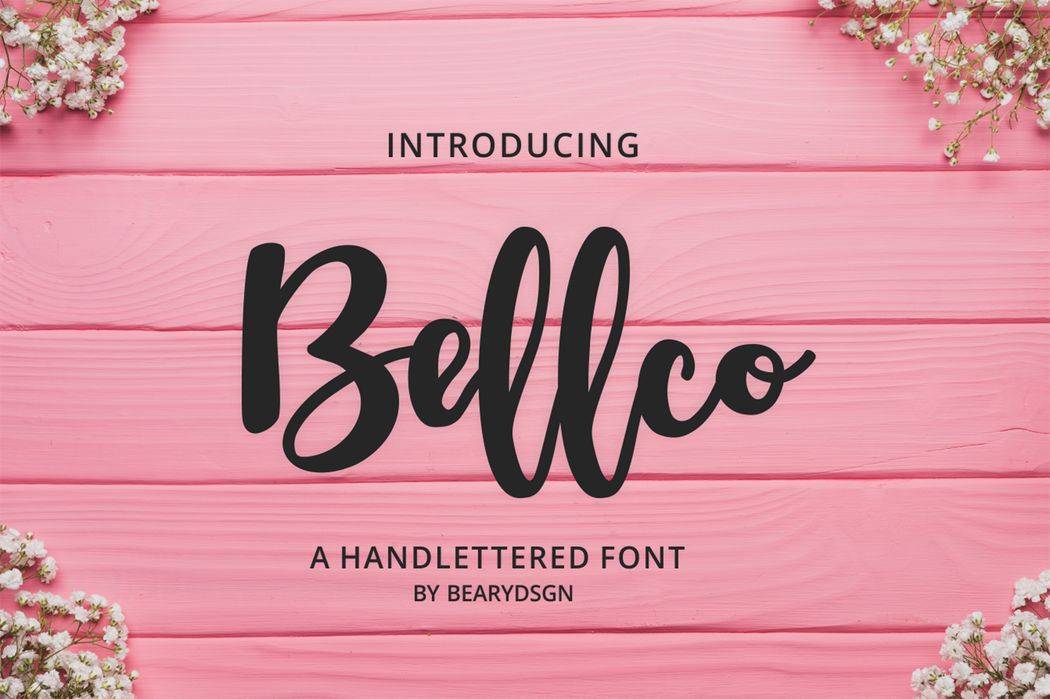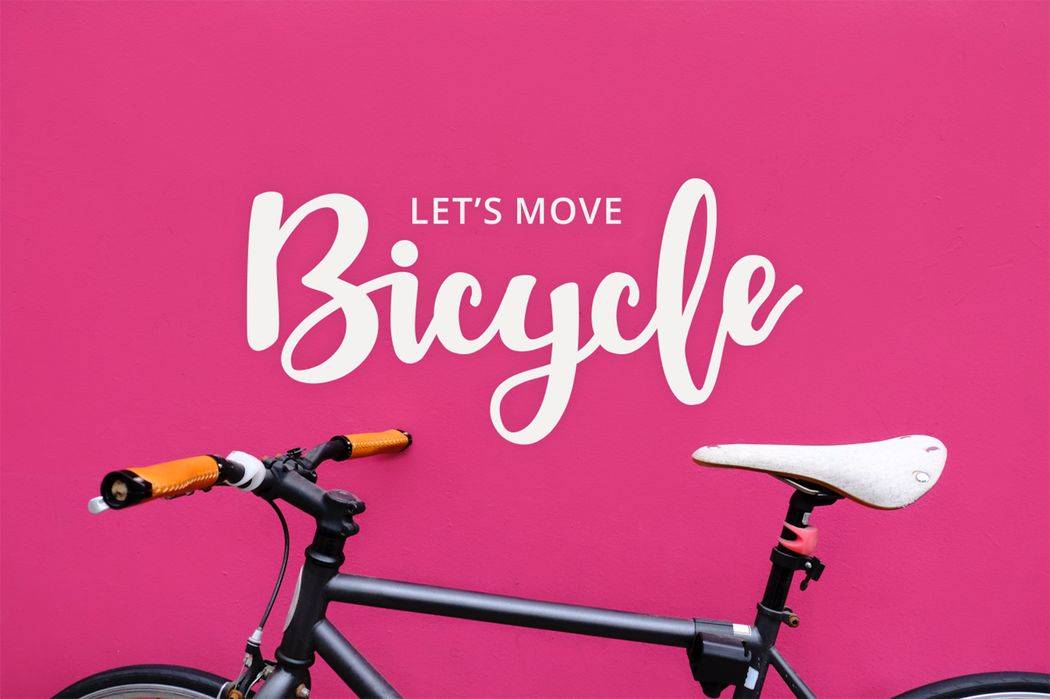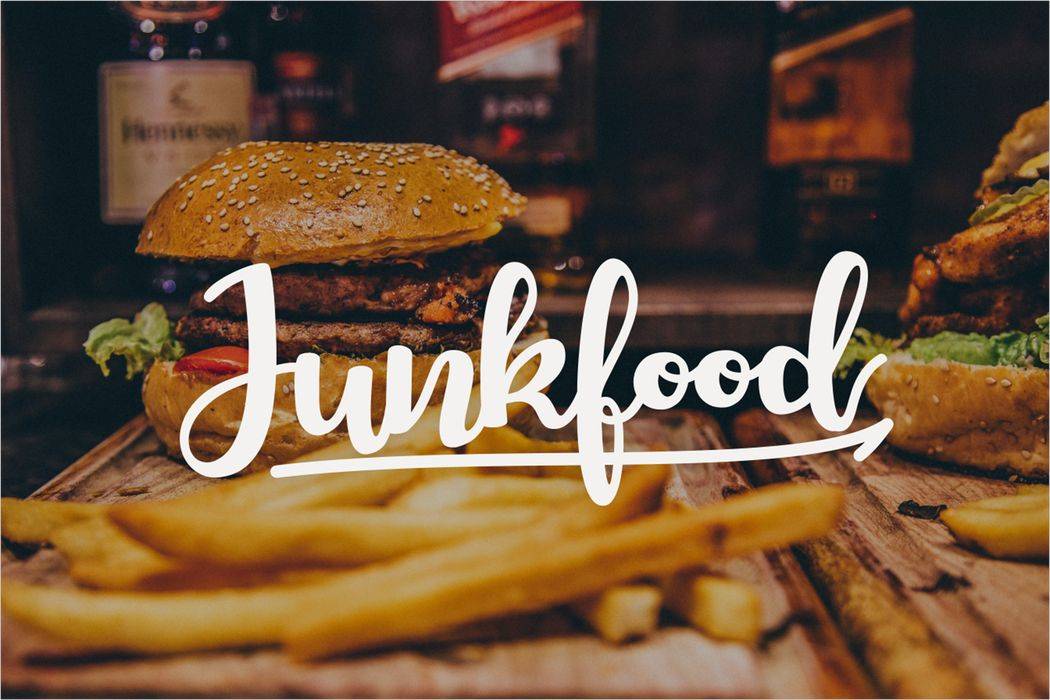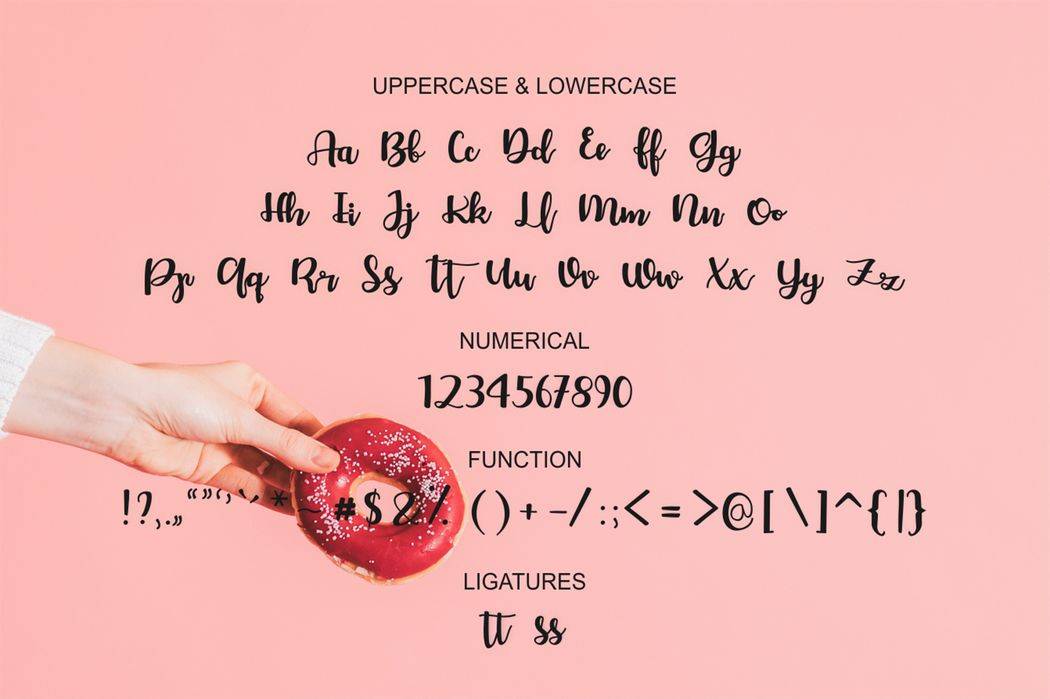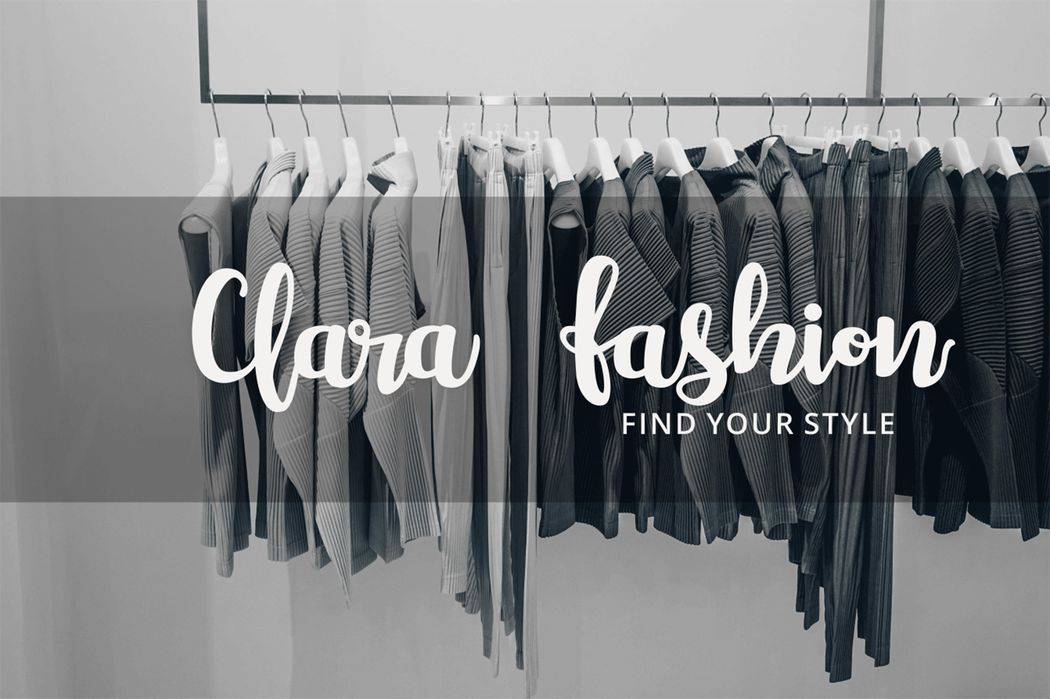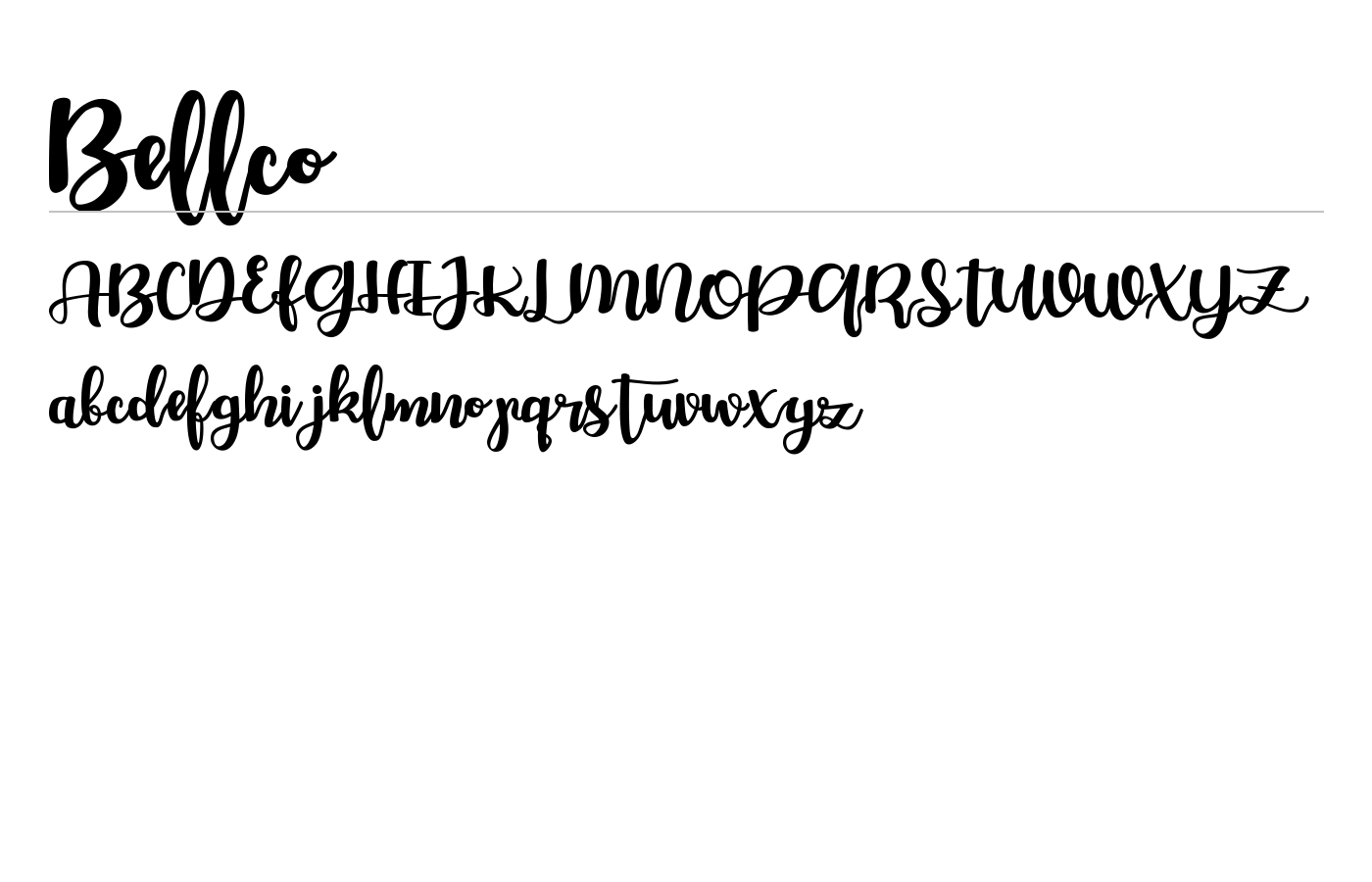
Bellco is a playful and elegant script font with smooth, flowing strokes and a bold weight that gives it a strong presence. Its hand-lettered style features lively swashes and loops, creating a warm and friendly vibe ideal for creative branding, invitations, and eye-catching headlines. This font works well in designs that want to convey a personal, artistic touch while maintaining readability and charm.
Bellco Font
About Bellco Font